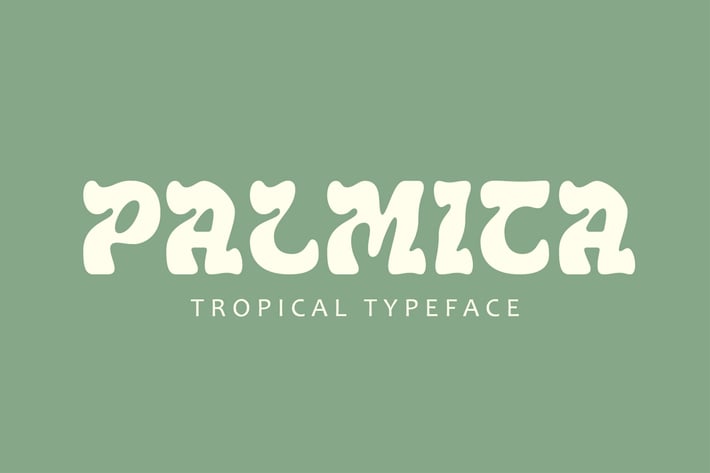
Palmica - Tropical Font
Introducing Palmica
Palmica is a tropical-inspired font that captures the essence of sun-soaked beaches and swaying palm trees. Designed with a unique blend of fluidity and elegance, Palmica offers a versatile aesthetic for both casual and professional uses.
Key Features of Palmica:
1. Handcrafted Feel: Palmica’s organic, hand-drawn style gives it an authentic and personal touch.
2. Stylish Curves: The font's smooth, flowing curves mirror the natural shapes of tropical flora.
3. Multi-Purpose Use: Ideal for branding, logos, apparel, invitations, and social media graphics.
4. Versatile Weights: Palmica includes multiple weights to fit a variety of design needs, from bold headlines to subtle body text.
5. Decorative Accents: Additional tropical-themed glyphs and ligatures, such as palm fronds and floral details, to enhance your designs.
Palmica brings a balance of sophistication and playfulness, making it a go-to choice for creating designs that stand out and transport the audience straight to paradise. Whether you’re designing for a beachwear brand, tropical-themed event, or island-inspired café, Palmica is your ticket to a tropical escape!